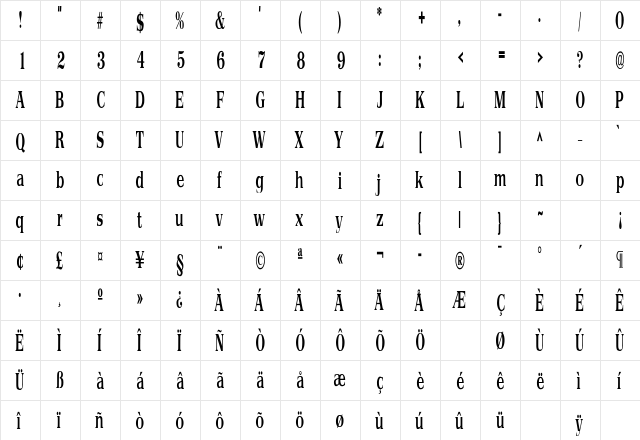
Primus Narrow SF Bold Font Preview
Design Context for Primus Narrow SF Typeface
Primus Narrow SF takes a measured approach to typography — its balanced proportions and neutral character make it a reliable workhorse for both digital and print work. The heavy weight commands attention and anchors typographic hierarchies. Its narrow stance lets it pack a punch even in space-constrained designs.